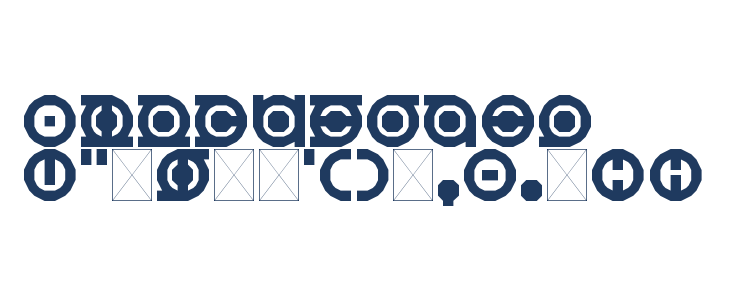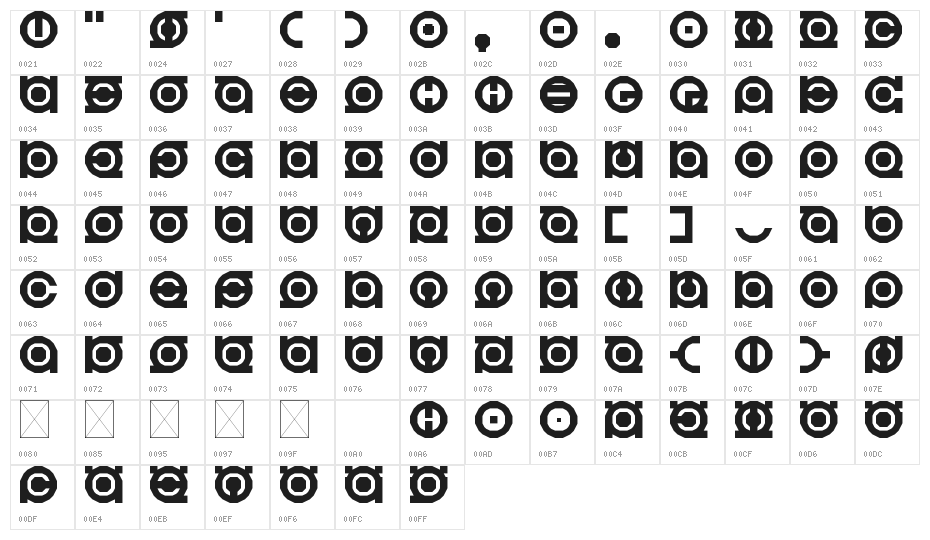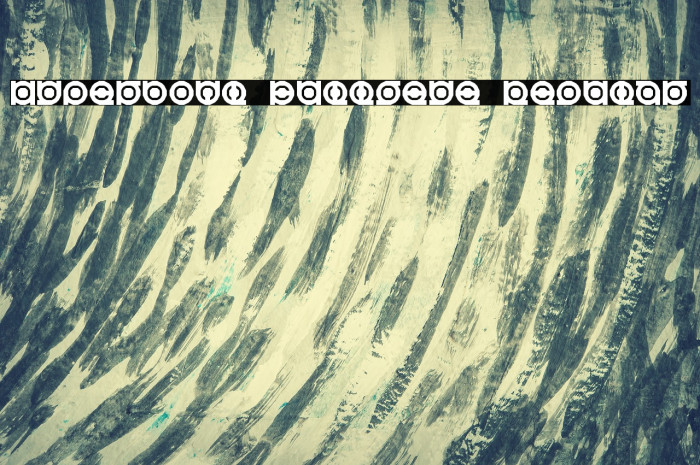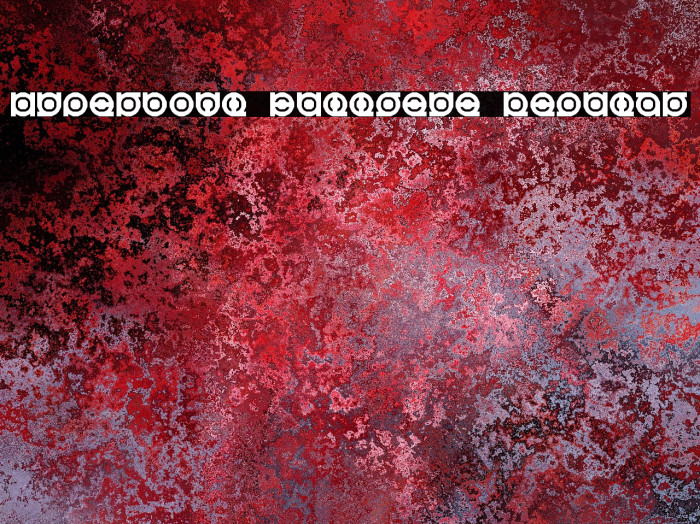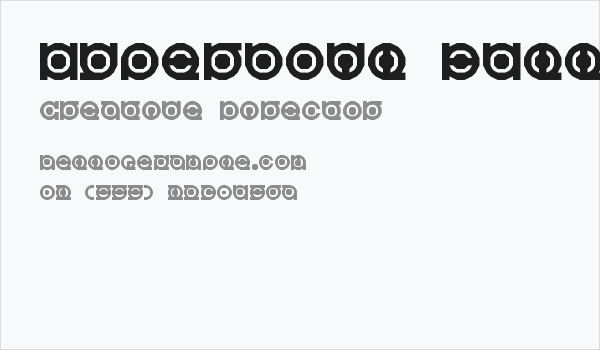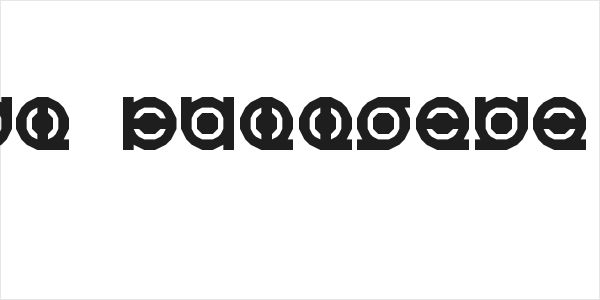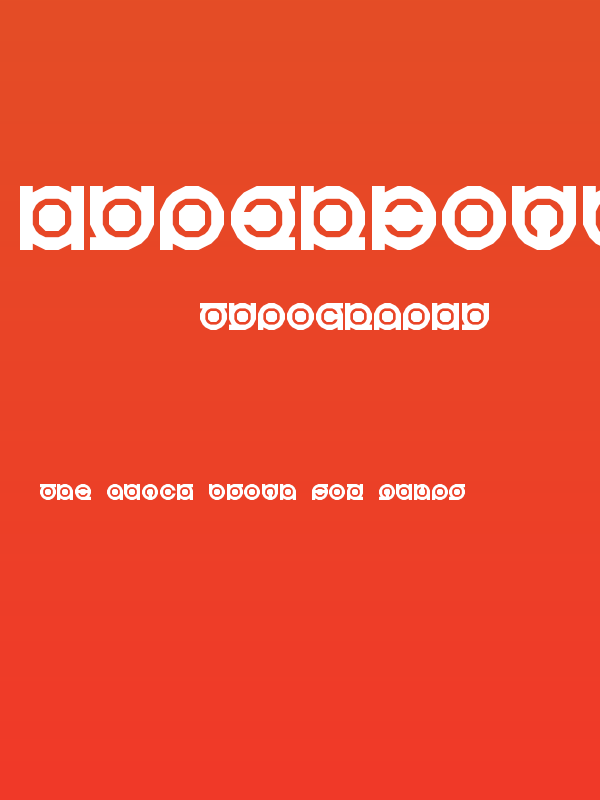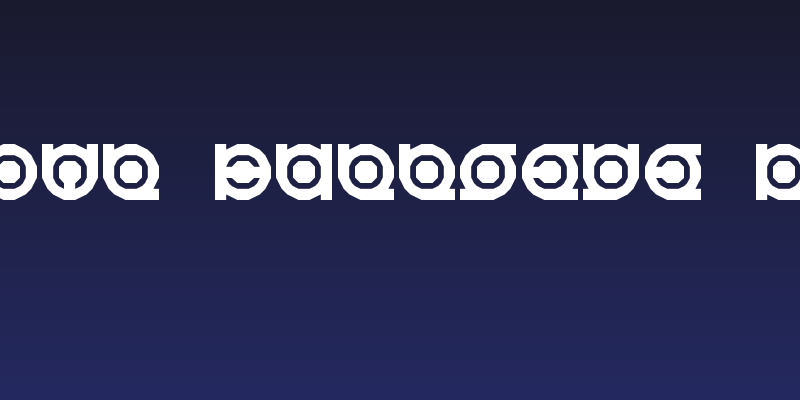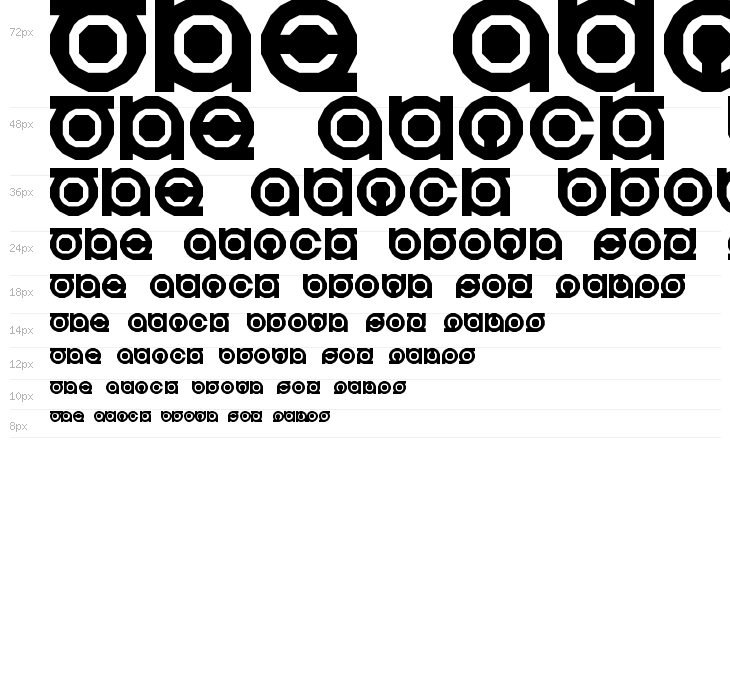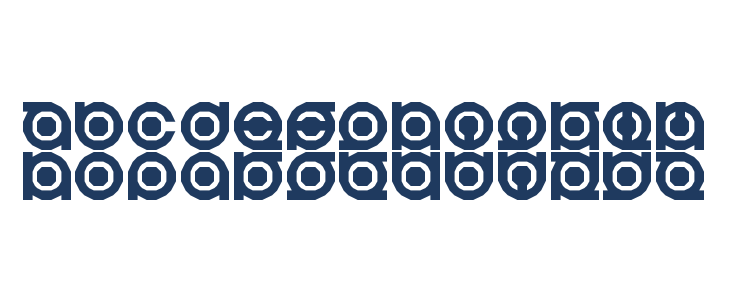
Hyperbowl Bullseye Regular Font
Hyperbowl Bullseye Regular Description
This font exhibits a bold and geometric design, characterized by its circular and target-like motifs. Each character is crafted with a strong emphasis on symmetry and balance, creating a visually striking appearance. The font's unique style is reminiscent of a bullseye pattern, with concentric shapes and bold outlines. Its distinctiveness makes it ideal for projects that require a modern and eye-catching aesthetic. The characters are evenly spaced, ensuring readability while maintaining their decorative appeal.
Proposed ProjectsIdeal for branding, posters, and modern graphic design projects that require a bold statement.